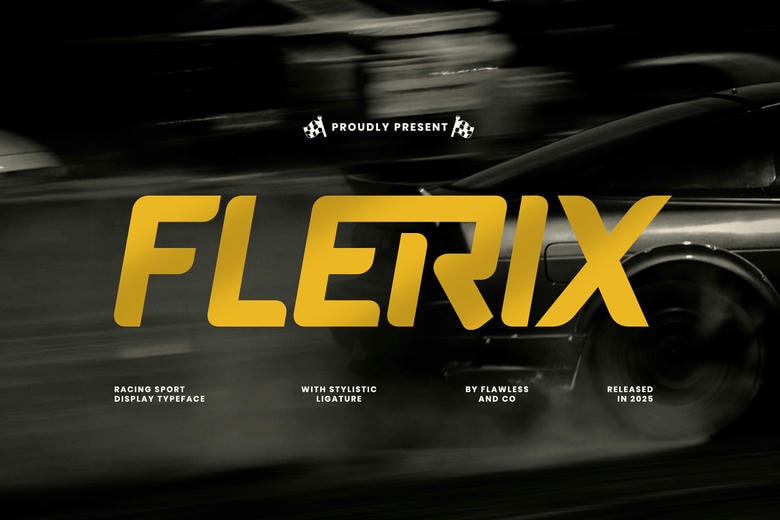
Flerix Font
Flerix is a high-speed racing display font that is designed to inject adrenaline, strength, and movement in any design. The use of the aerodynamic letterforms, sharp curves and dynamic slanted cuts make Flerix give an impression of speed even in a still layout where every word seems fast, competitive and unstoppable.
The typeface reflects the ideology of racing, performance, and automotive dynamics, which are ideal in a project that requires a modern and action-oriented visual identity.
Flerix Display Font